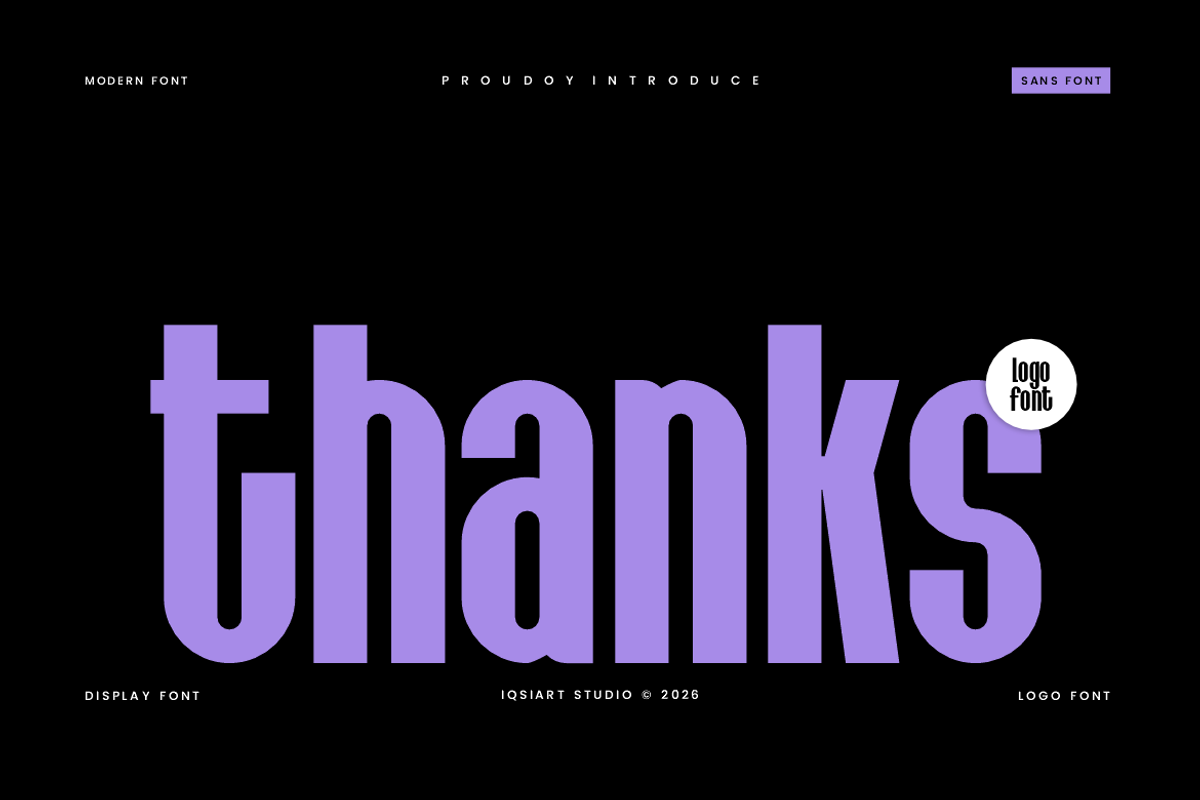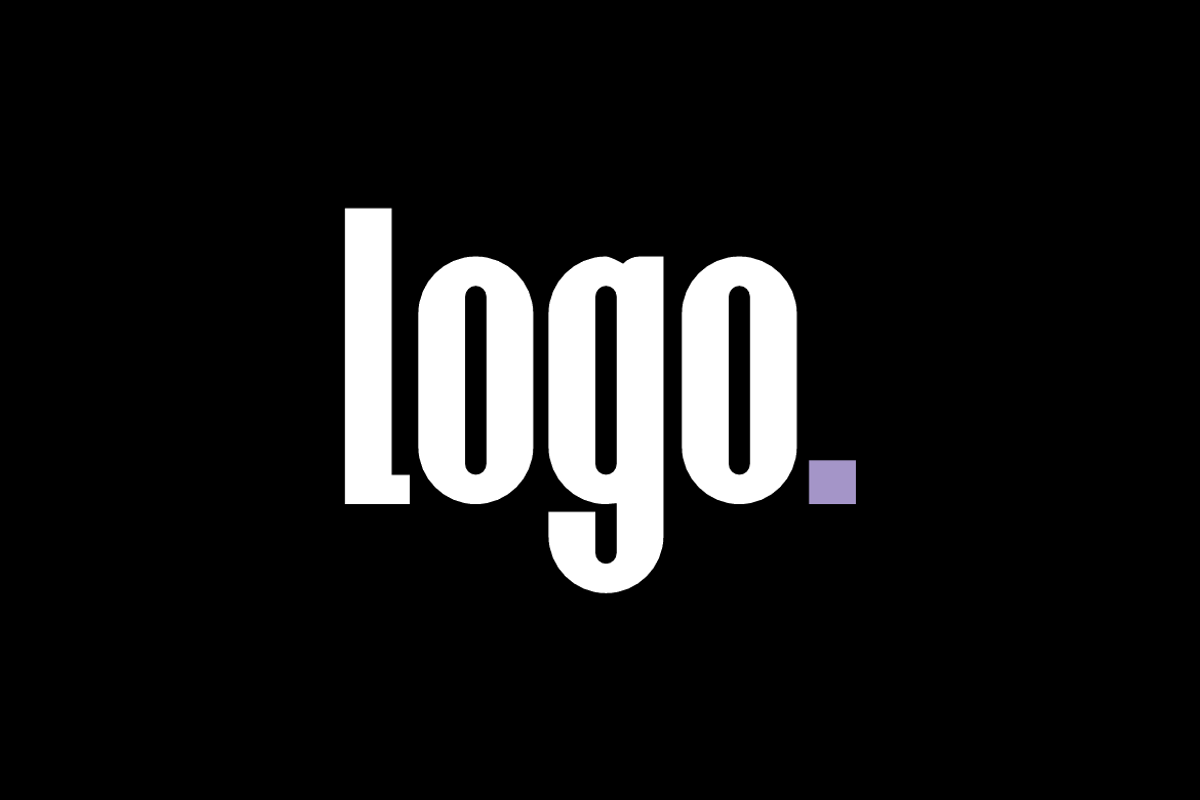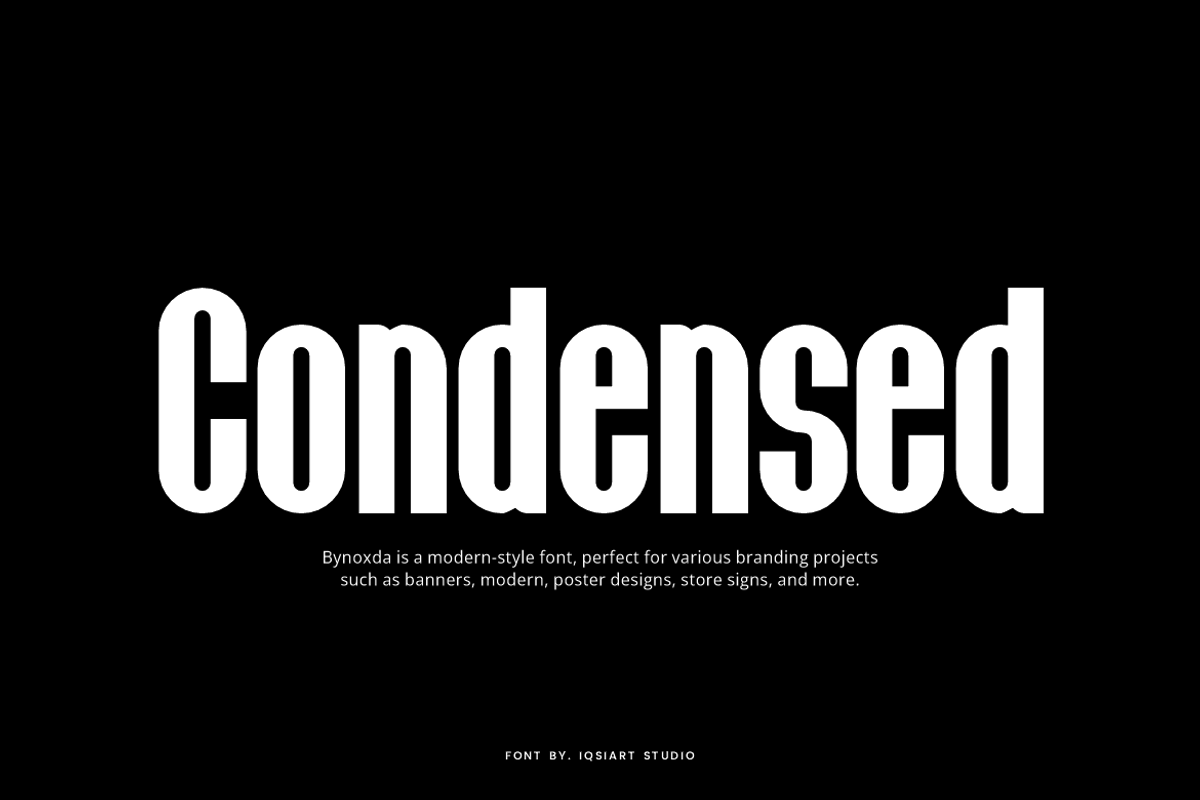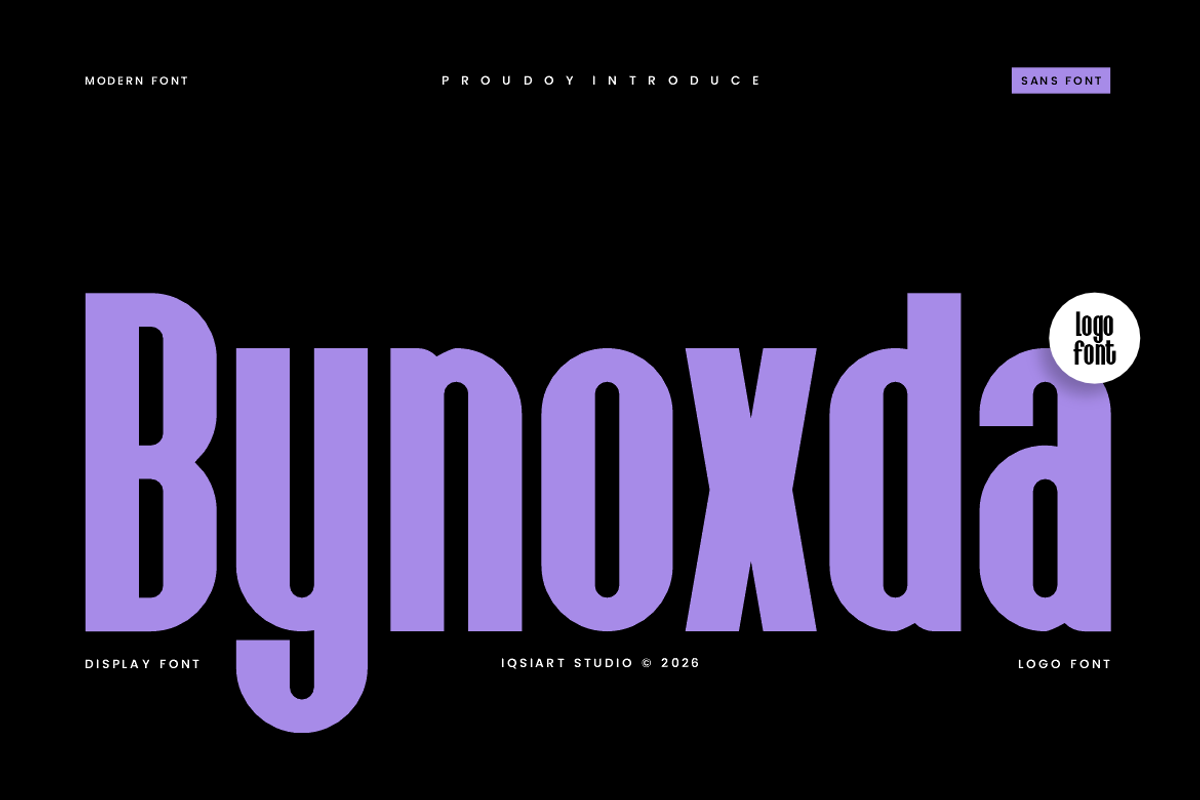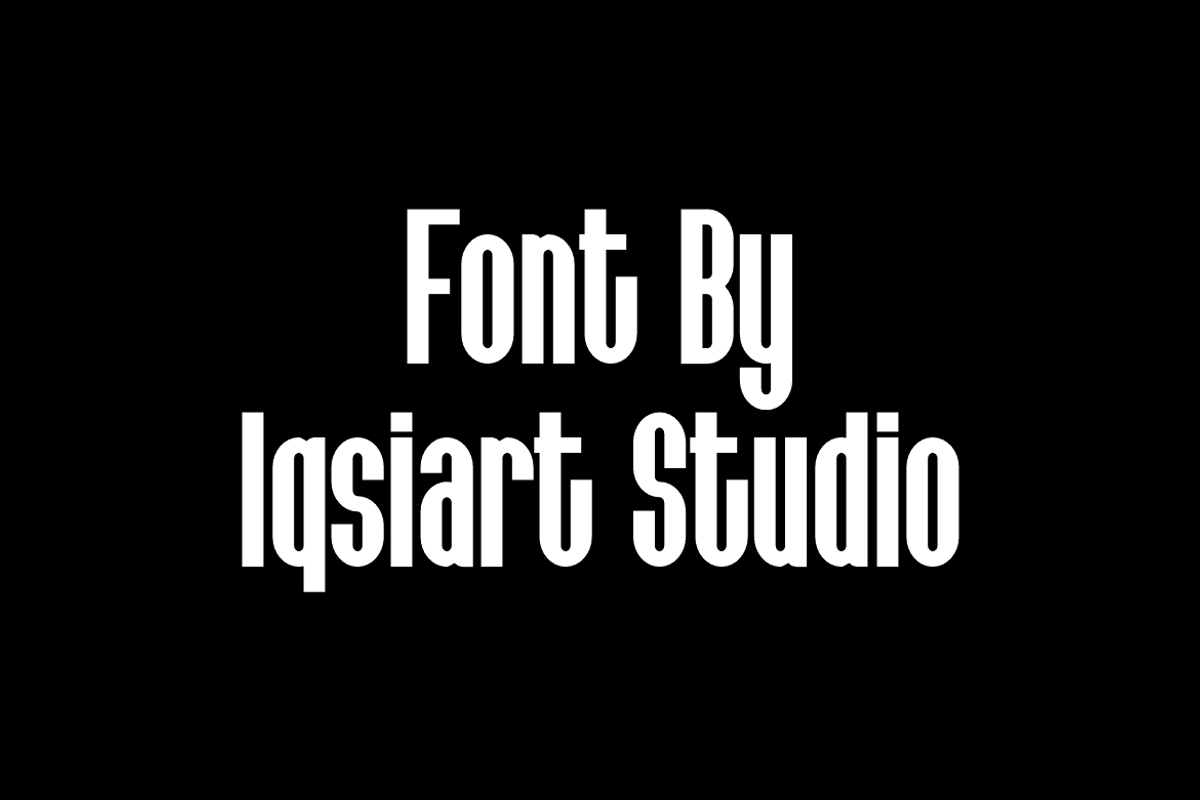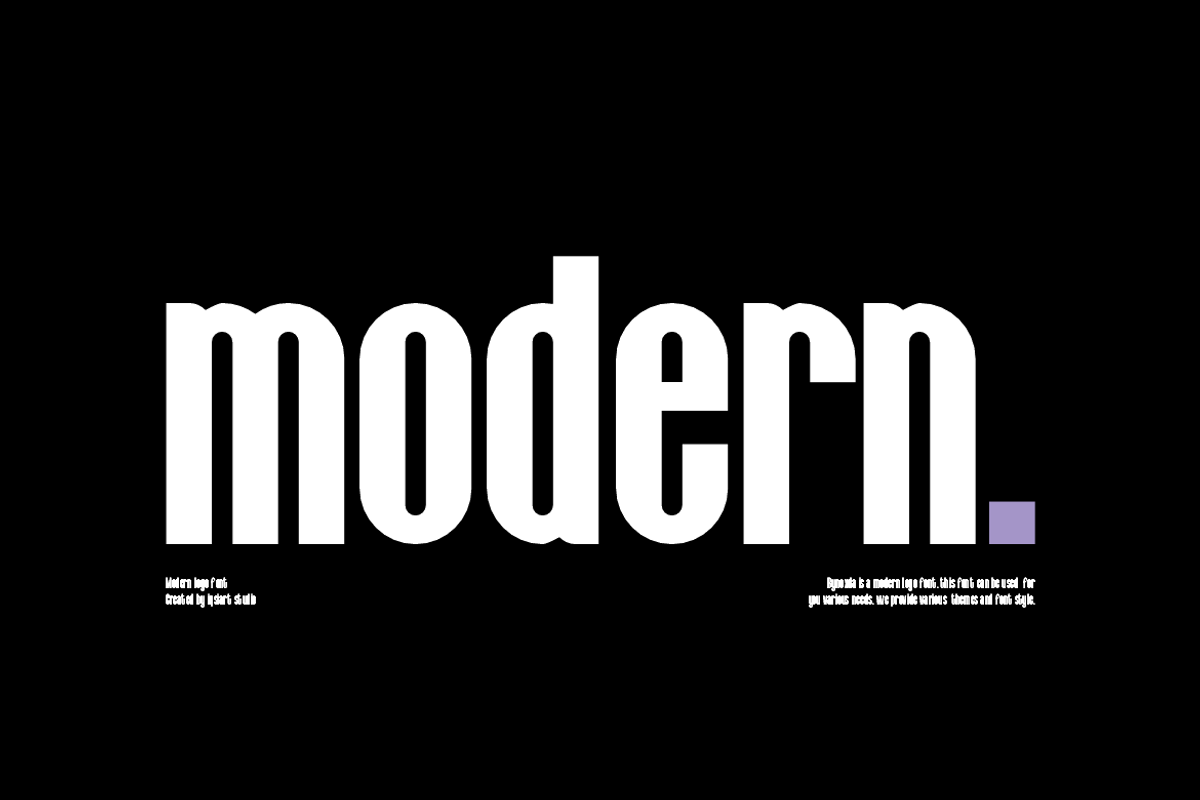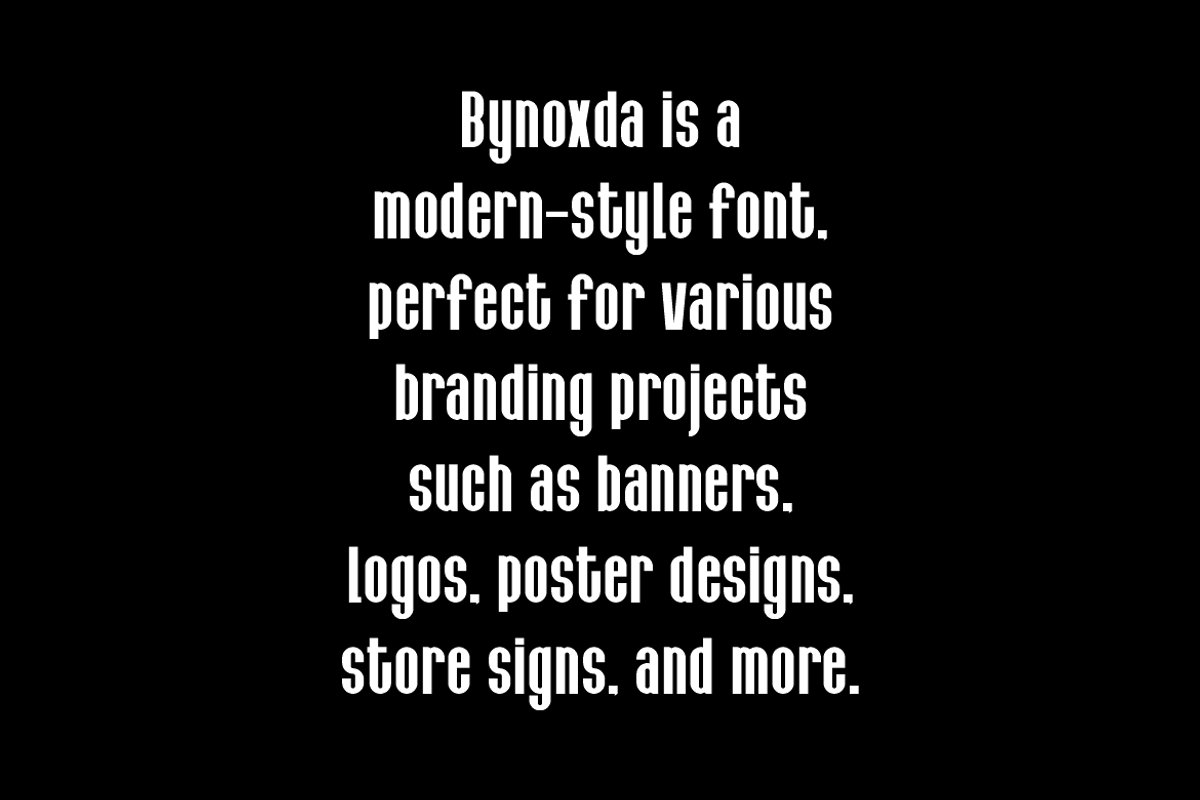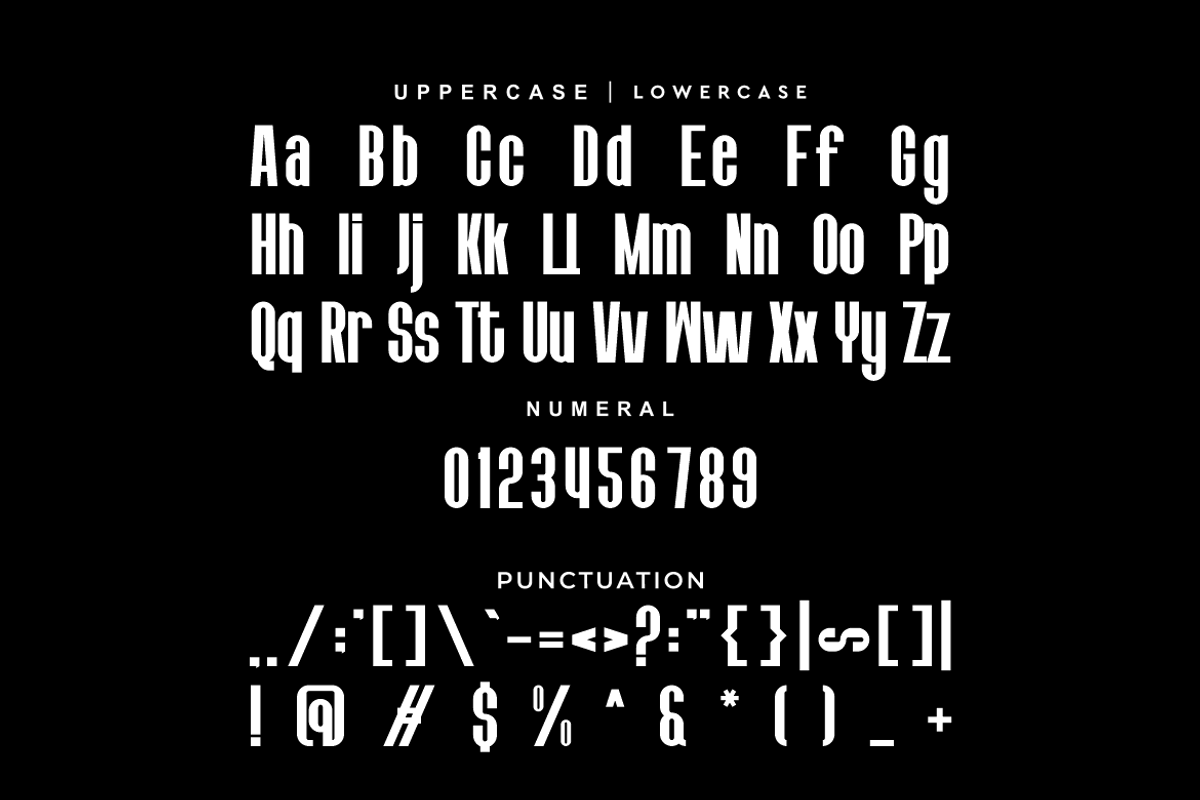
Bynoxda - Modern Condensed Font
Bynoxda Font is a bold and authentic display typeface. It’s perfect for various branding projects such as logos, sports designs, and more. This font stands out beautifully in a wide range of contexts.